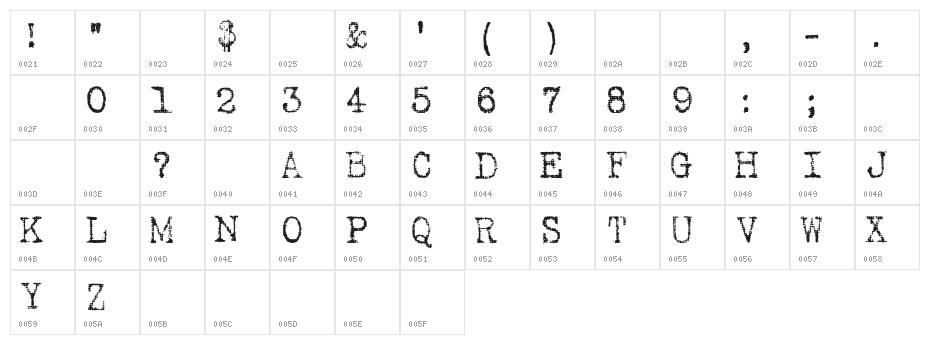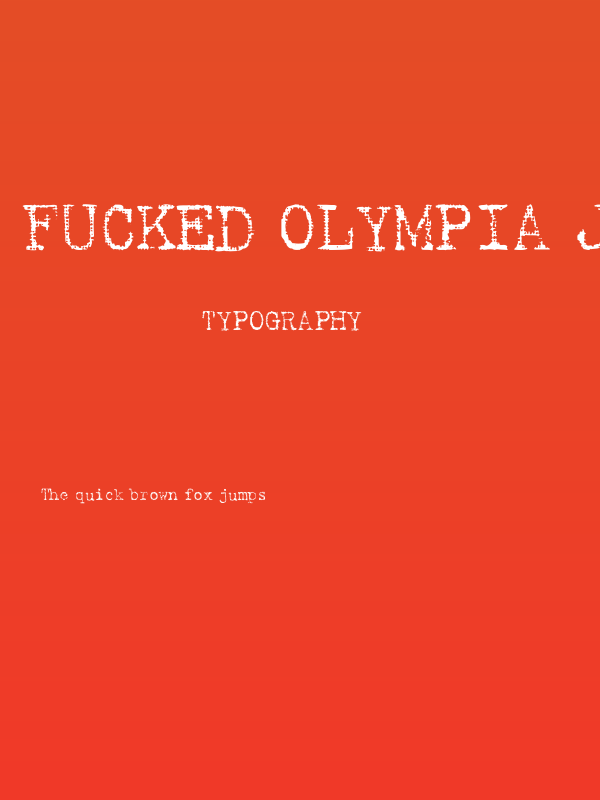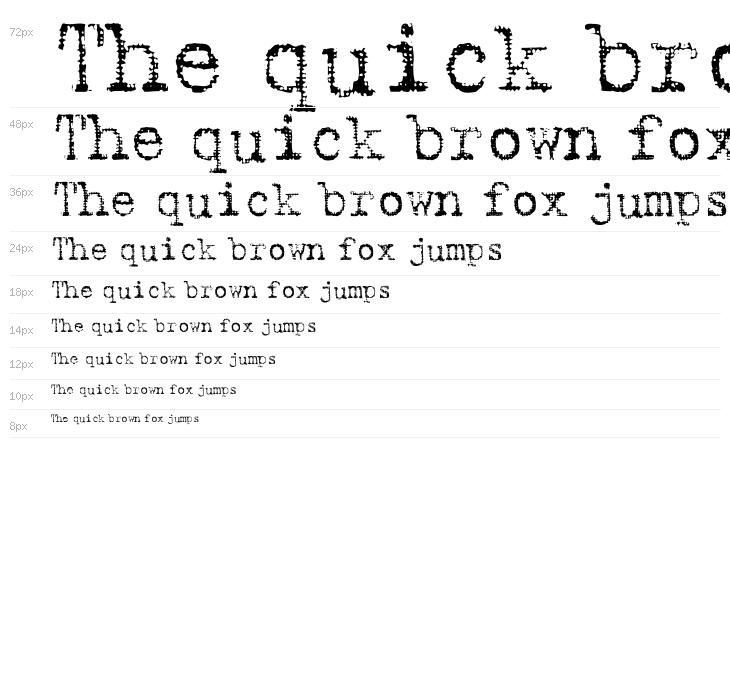
Fucked Olympia J Font
Fucked Olympia J Description
This font exhibits a distressed, grunge style with a textured appearance that mimics the look of aged, worn-out typewriter text. Each character is uniquely weathered, giving it an authentic, vintage feel. The uppercase and lowercase letters maintain a consistent height, while the numerals and special characters follow the same distressed pattern. The font's irregular edges and rough texture create a sense of movement and energy, making it ideal for projects that require a bold, eye-catching design. Its distinct style can evoke a sense of nostalgia or convey a rugged, edgy aesthetic.
| Overall Style | Vintage, Grunge |
| Proposed Projects | Ideal for album covers, posters, vintage-themed designs, and branding that requires a rugged, edgy look. |